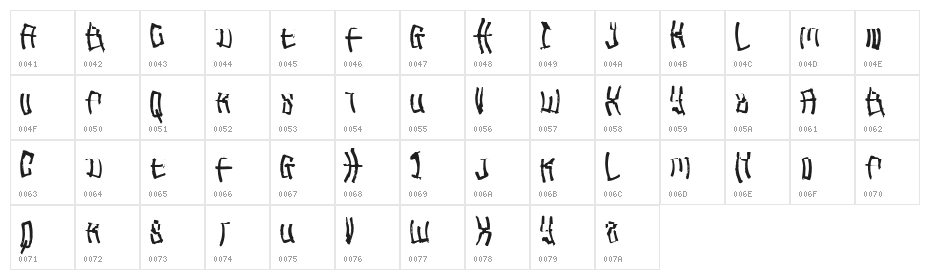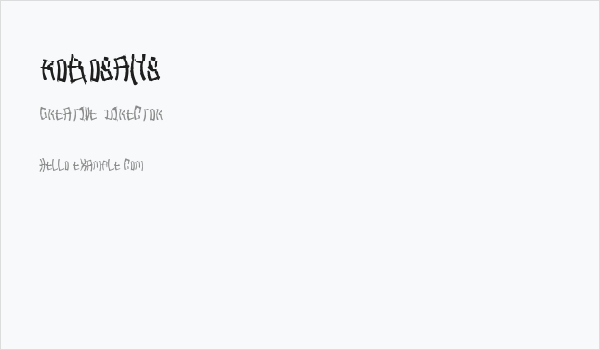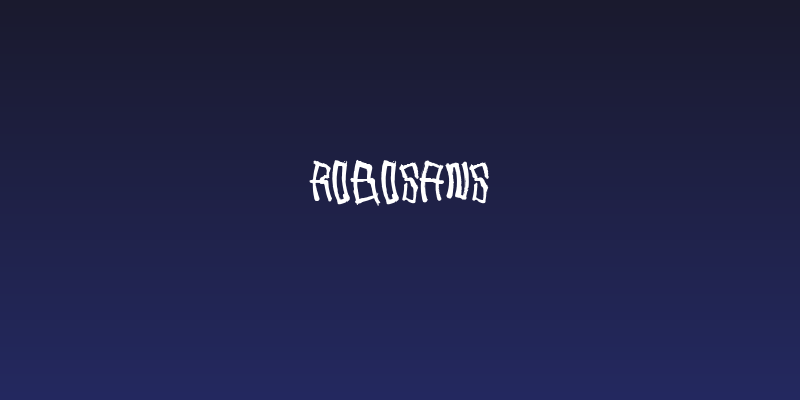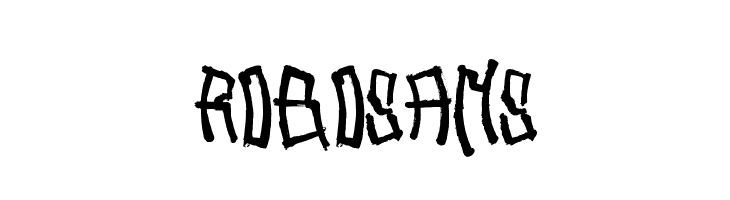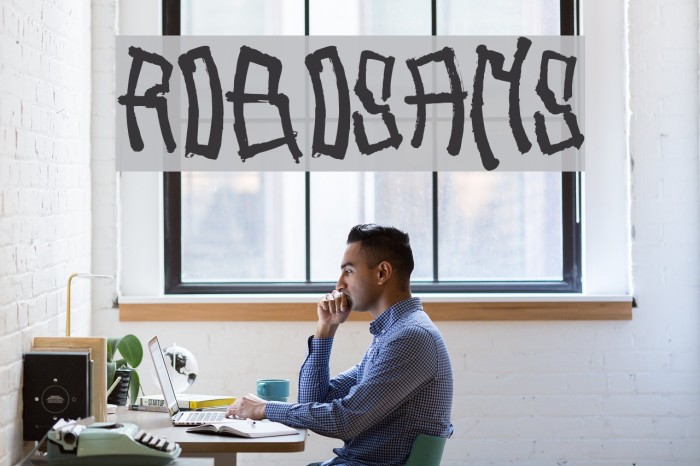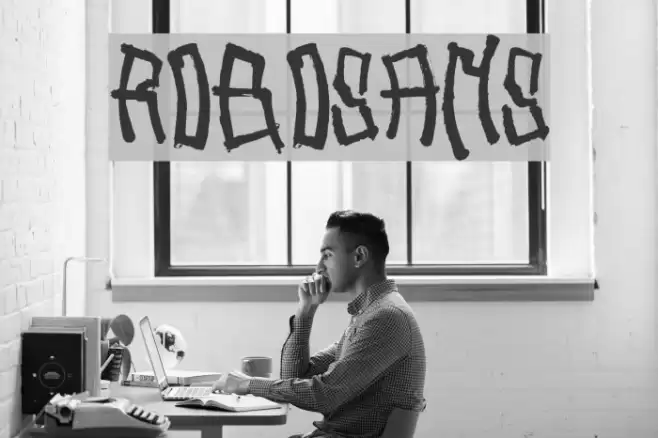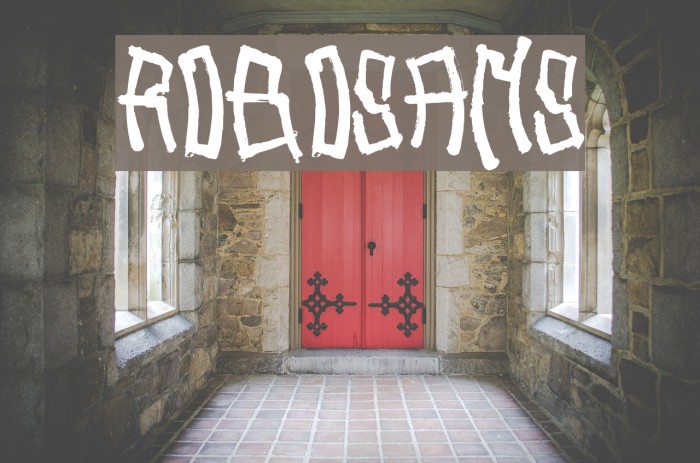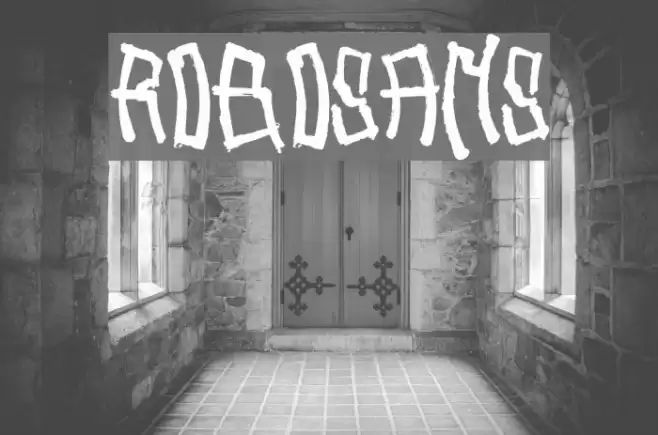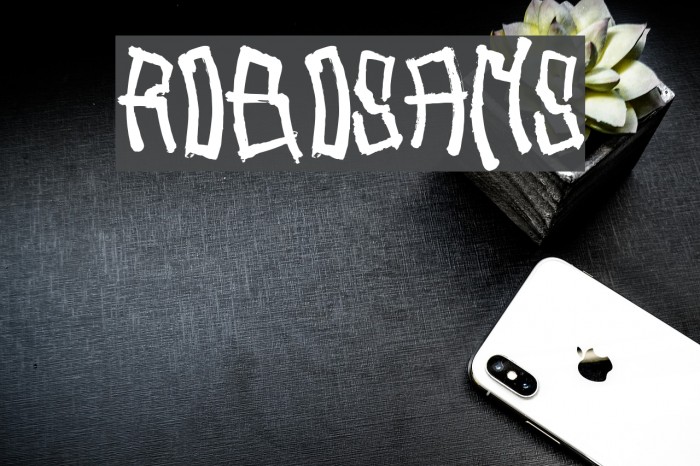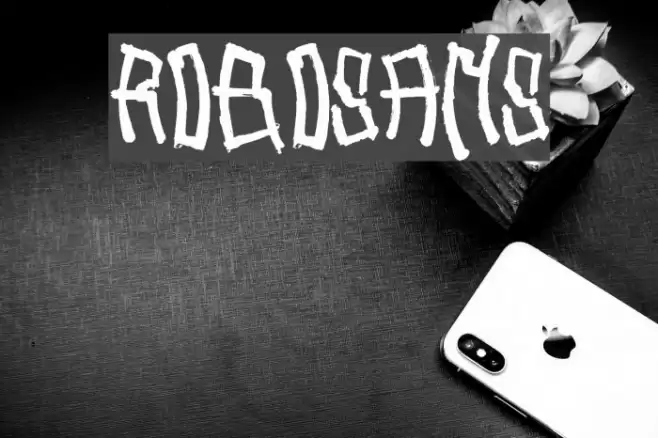
Robosans Font
Robosans Description
This font features a bold and expressive style with a hand-drawn appearance. The characters are irregular and dynamic, giving a sense of movement and energy. The strokes are thick and uneven, resembling brush strokes with a rough texture. This creates a raw and edgy look, making it ideal for projects that require a strong visual impact. The uppercase and lowercase letters maintain a consistent style, with unique variations that add to the font's character. The numbers and special characters are equally bold and distinctive, ensuring a cohesive design across all elements.
| Proposed Projects | Ideal for posters, album covers, graffiti art, and any project requiring a bold, artistic touch. |